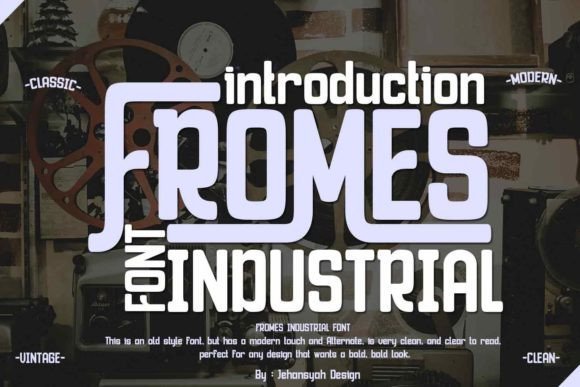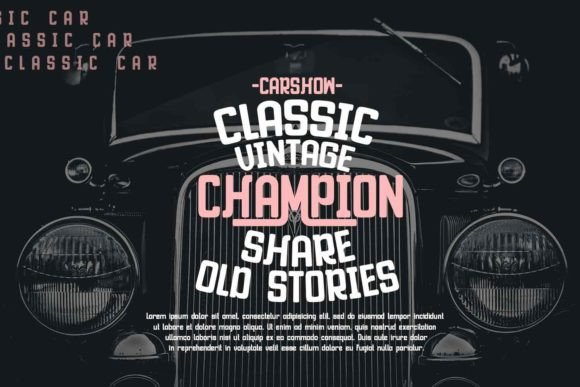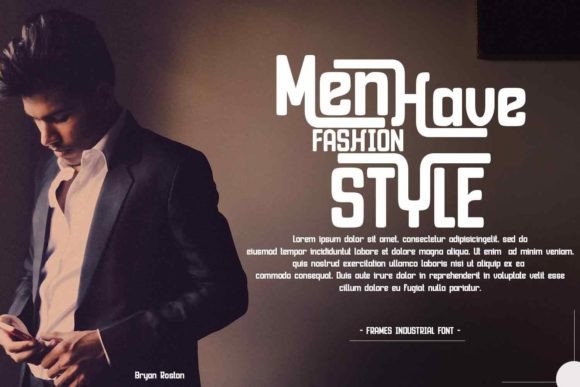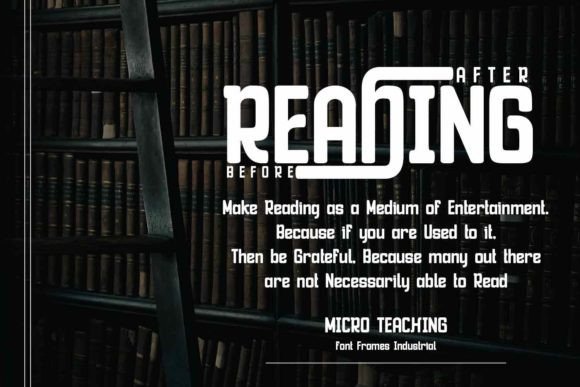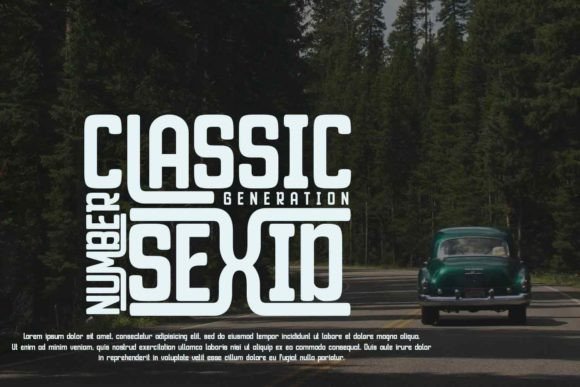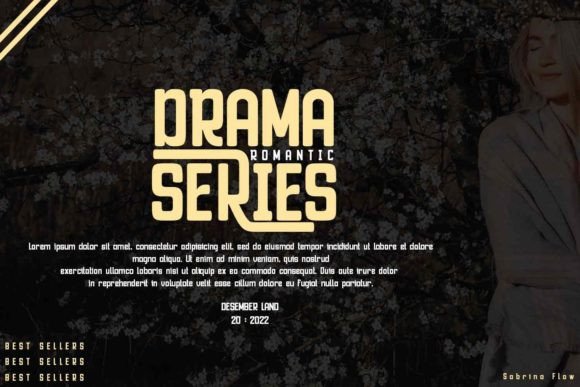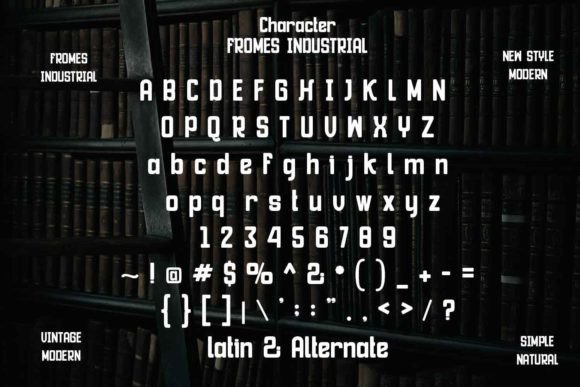
Unleashing the Beauty of Fromes Industrial Font
Do you remember the moment when a font choice made all the difference in your design project? Maybe it was the perfect font that elevated your poster from ordinary to extraordinary. For designers, the right font can be the difference between a good design and a great one. In this article, we’ll explore the world of Fromes Industrial Font, a charming display font that’s sure to impress.
Fromes Industrial Font is more than just a pretty face – it’s a versatile tool for creatives. With its elegant and neat impression, it’s perfect for a wide range of printed works, from posters and book thumbnails to films and magazines. Plus, its PUA encoding makes it easy to access all the glyphs and swashes, giving you endless possibilities for customization.
Fromes Industrial Font Key Features
- Font Family: Fromes Industrial Font is a sans-serif font family designed for industrial and technical applications.
- Size: The font family includes 4 weights: Light, Regular, Medium, and Bold, with corresponding font sizes ranging from 8 to 72 points.
- Unique Characteristics: Fromes Industrial Font features a distinctive, industrial-inspired design with geometric shapes, straight lines, and a monolinear stroke, making it ideal for technical and industrial applications.
- Language Support: Supports a wide range of languages, including Latin, Cyrillic, and Greek alphabets, with Unicode coverage for international characters and symbols.
Fromes Industrial Font Review
I recently had the chance to work with the Fromes Industrial Font, and I’m excited to share my thoughts on this industrial-inspired typeface.
- ✨ Unique aesthetic: Fromes Industrial Font has a distinctive look that’s perfect for creating a gritty, urban feel in your designs.
- ✨ Versatile: This font can be used in a variety of contexts, from branding and marketing materials to editorial and design projects.
- ✨ High-quality rendering: The font renders well in various sizes and resolutions, ensuring a crisp and clean appearance.
- ⚠️ Limited language support: Unfortunately, Fromes Industrial Font only includes support for a limited number of languages, which may be a concern for global design projects.
- ⚠️ Limited stylistic options: While the font has a unique aesthetic, it can feel a bit one-dimensional at times, lacking the range of stylistic options offered by other fonts.
Overall, Fromes Industrial Font is a solid choice for designers looking to add an industrial edge to their projects. While it has some limitations, its unique aesthetic and versatility make it a great option for a wide range of design applications.
Tips for Getting the Most Out of Fromes Industrial Font
To get the most out of Fromes Industrial Font, use it in designs that require a strong, industrial feel.
Pair the font with other industrial-themed elements, such as gears, cogs, or other machinery-inspired graphics.
Use Fromes Industrial Font in headings and titles to create a bold, attention-grabbing effect.
Fromes Industrial Font is commonly used in:
Industrial-themed designs, such as factory or warehouse layouts.
Machinery and equipment designs, such as gears or engines.
Technical and scientific presentations, such as engineering or physics lectures.
Alternatives to Fromes Industrial Font
Fontin Sans
Fontin Sans is a sans-serif font that exudes a modern and industrial feel. It is ideal for use in digital products, such as websites, apps, and video games. Fontin Sans has a more polished and refined look compared to Fromes Industrial Font, making it a better choice for projects that require a more sophisticated aesthetic.
Comparison: Fontin Sans has a more streamlined and geometric design, whereas Fromes Industrial Font has a more rugged and distressed look.